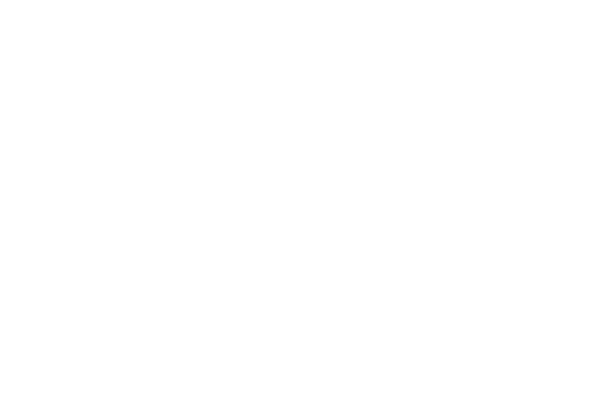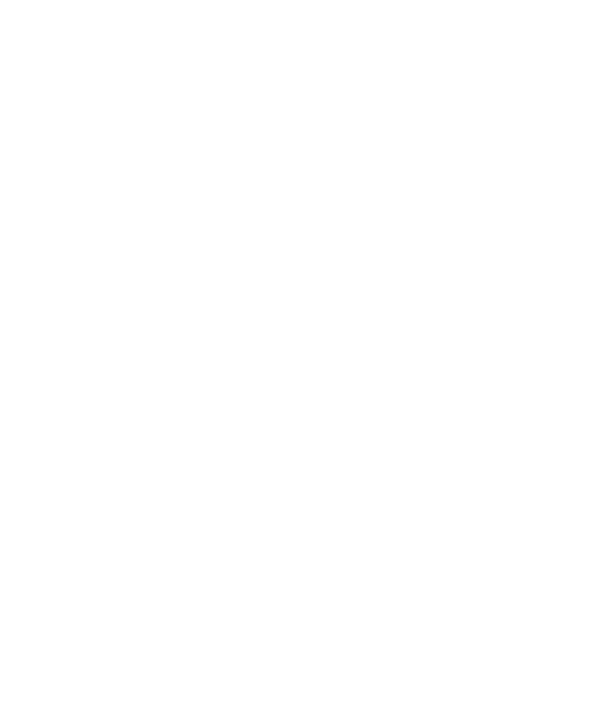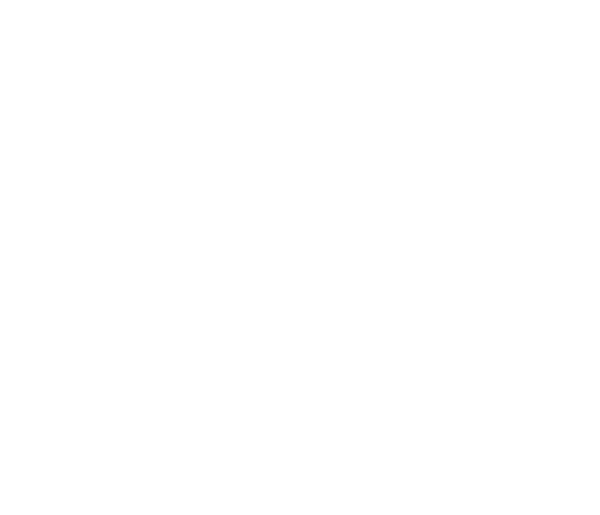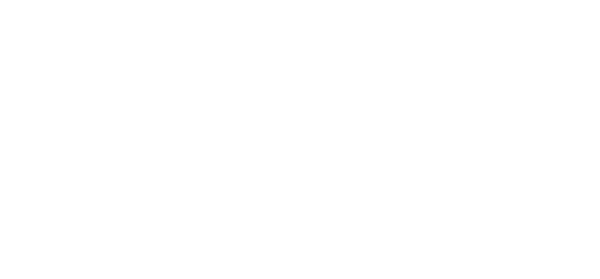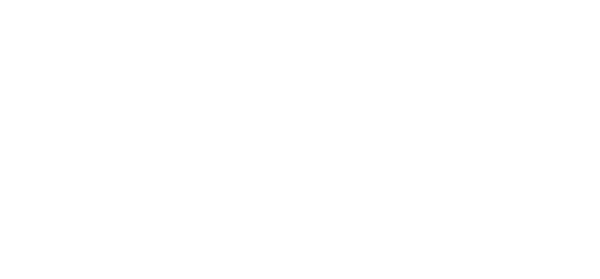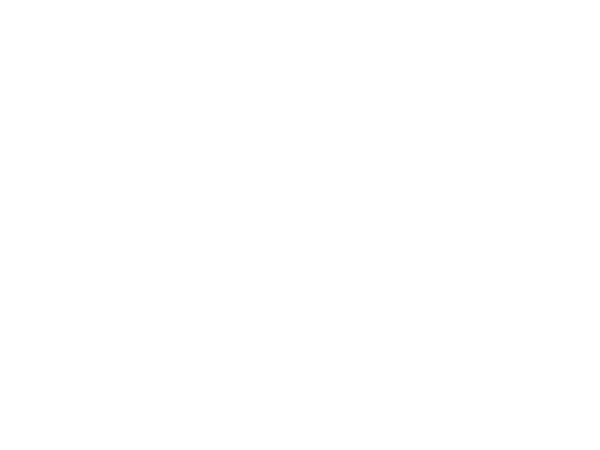
A new FREE rounded, simple, space-ie typeface family entitled Moon, with both thin and bold variations, free for personal use only. Affordable commercial licenses available. Contact me via email :  Hope you enjoy! :) Read Less
Moon - Free Font